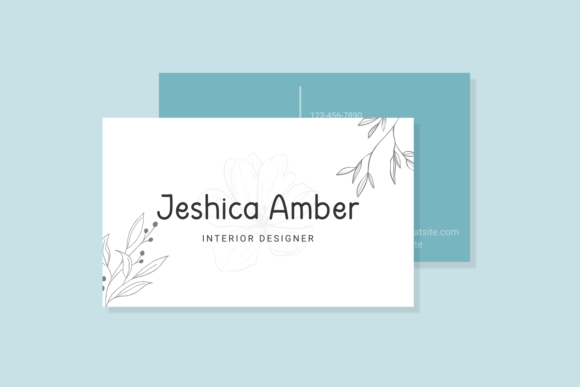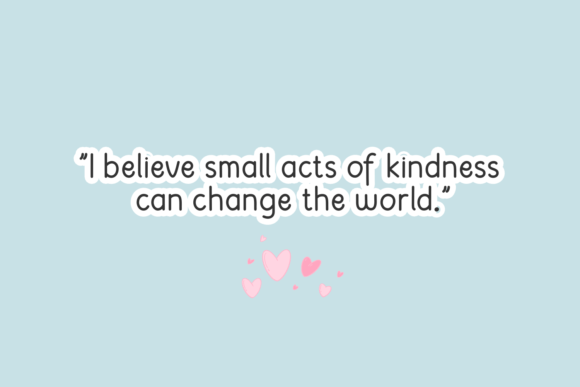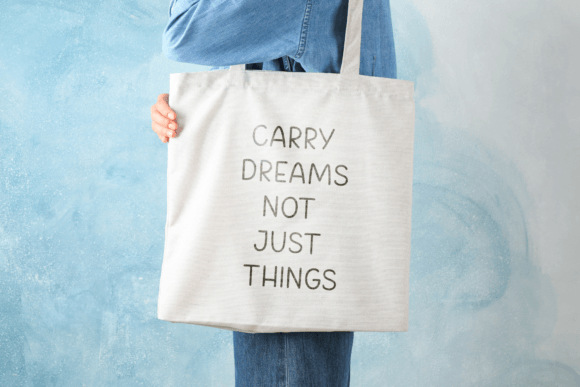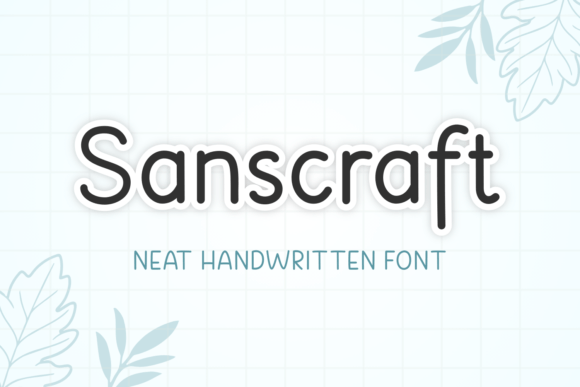
Introduction to Sanscraft Font
Introducing Sanscraft, a timeless sans serif font that exudes sophistication and simplicity.
Ideal for the modern creative professional, its sleek lines effortlessly complement varying projects, from brand identities to digital interfaces and printed media Artfully designed to ensure optimal readability, Sanscraft’s aesthetic appeal enhances each viewer’s experience, lending a polished and adaptable element to your designs.
Key Features of Sanscraft Font
Why Choose Sanscraft Font?
Sanscraft Font offers exceptional quality and versatility, making it a valuable addition to your design toolkit. Whether you’re creating for personal projects or commercial use, Sanscraft Font delivers professional results.